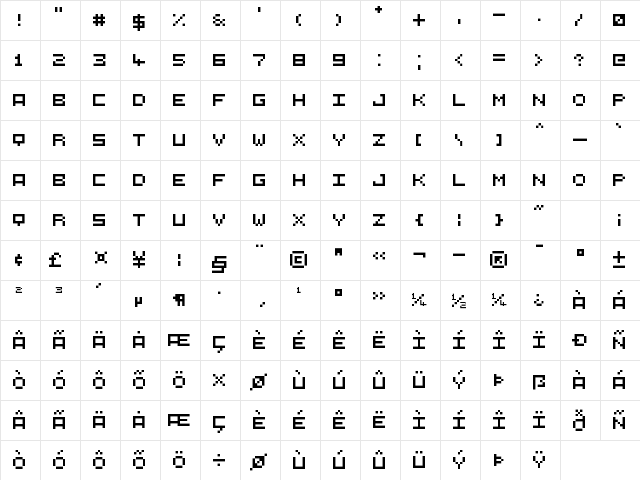
5X5 Regular Free Font
5X5 Regular
5X5 Family
5X5 Regular
Design Context for 5X5
5X5 is a composed and adaptable typeface that performs quietly and consistently across a wide range of design contexts.